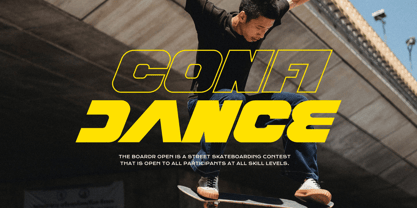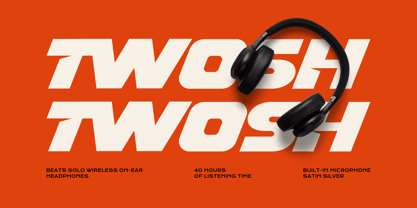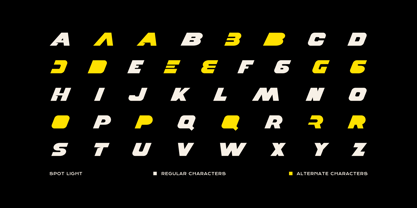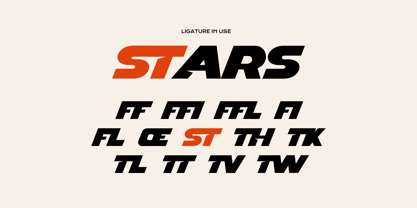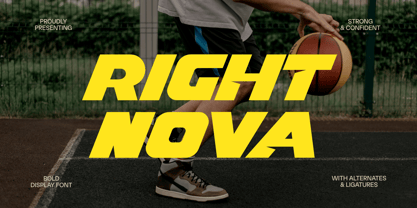
Right Nova
Die Schriftfamilie Right Nova wurde von Aulia Savira Putri entworfen und von Imoodev veröffentlicht. Right Nova enthält 1 Stile. Mehr über diese Familie
Right Nova is a powerful and energetic bold display font designed to make an unforgettable impact. With its aggressive forward slant and sharp, confident letterforms, Spot Light injects a shot of adrenaline into any design. It's built for speed, strength, and modern aesthetics.
Whether you're branding a sports team, designing a tech startup logo, poster, streetwear, skateboarding contests, fast car racing sports titles, running matches, cycling, automotive game logos, jersey design, sport slogan, crafting apparel graphics, or any type of advertising purpose, this font provides the muscle and style you need to stand out.